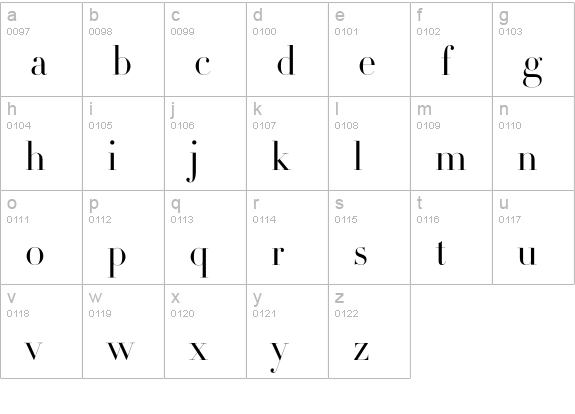
Didot-HTF-L64-Light Font Details
Didot-HTF-L64-Light is a refined, elegant variant in the Didot typeface family \xE2\x80\x94 well suited to elegant body text, refined sub-headings, and luxury branding.
The Didot-HTF-L64-Light font is an elegant and sophisticated typeface that exudes luxury and refinement. With its delicate and slim letterforms, this font is perfect for creating a timeless and classy look in your designs. Whether you are working on a high-end fashion magazine, a luxury brand logo, or an exclusive event invitation, Didot-HTF-L64-Light will add a touch of sophistication to any project. The clean lines and graceful curves of this font make it ideal for use in both print and digital media. Its light weight gives it a delicate and airy appearance, making it a versatile choice for a wide range of design applications. Whether you are designing a website, a poster, a brochure, or any other visual communication piece, Didot-HTF-L64-Light will bring a sense of elegance and style to your work. Best of all, Didot-HTF-L64-Light is available for free download at FontsMarket.com. You can easily access this beautiful font and enhance your design projects with its timeless charm. Don't miss out on the opportunity to add this stylish and sophisticated typeface to your collection. Download Didot-HTF-L64-Light today and elevate your designs to the next level.